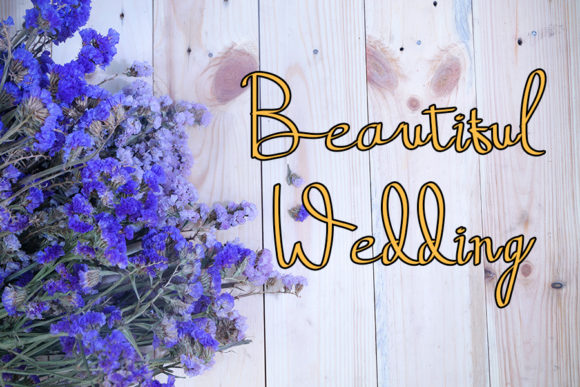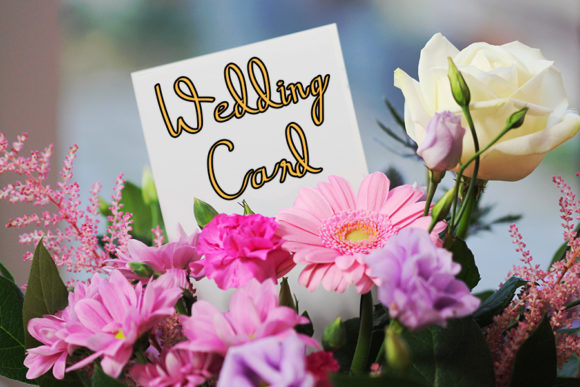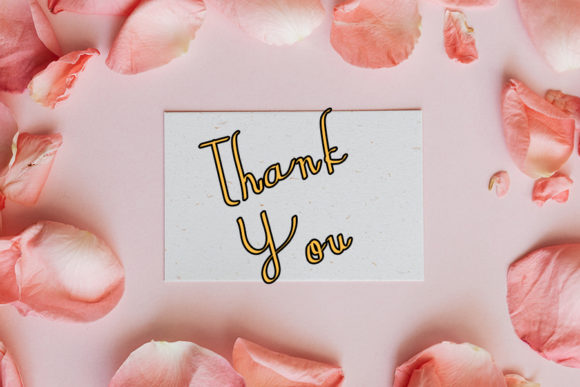
Anindy Font
About Anindy Font
Anindy is a cursive and distinct handwritten font. Fall in love with its incredibly versatile style and use it to create gorgeous wedding invitations, beautiful stationary art, eye-catching social media posts, and much more!